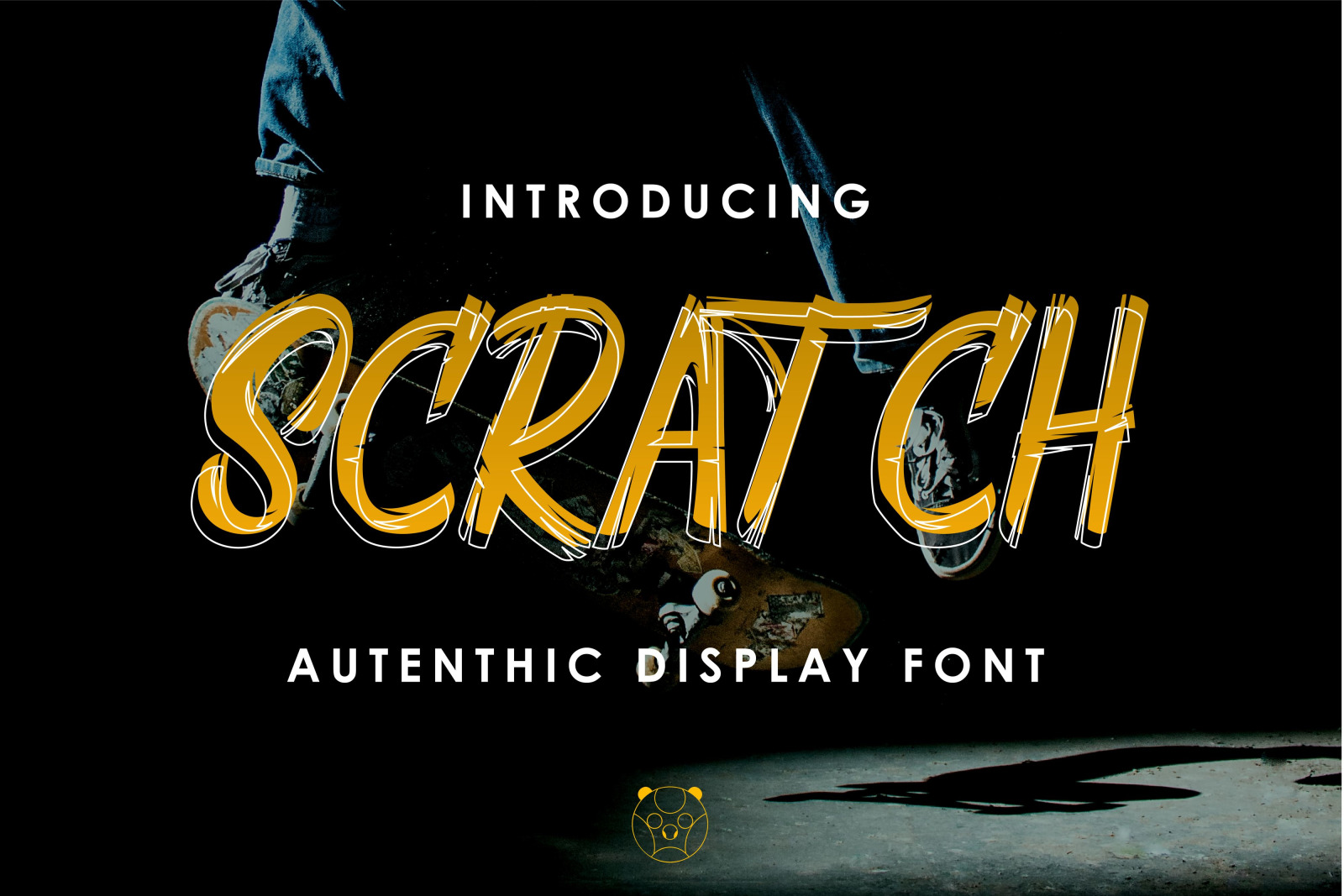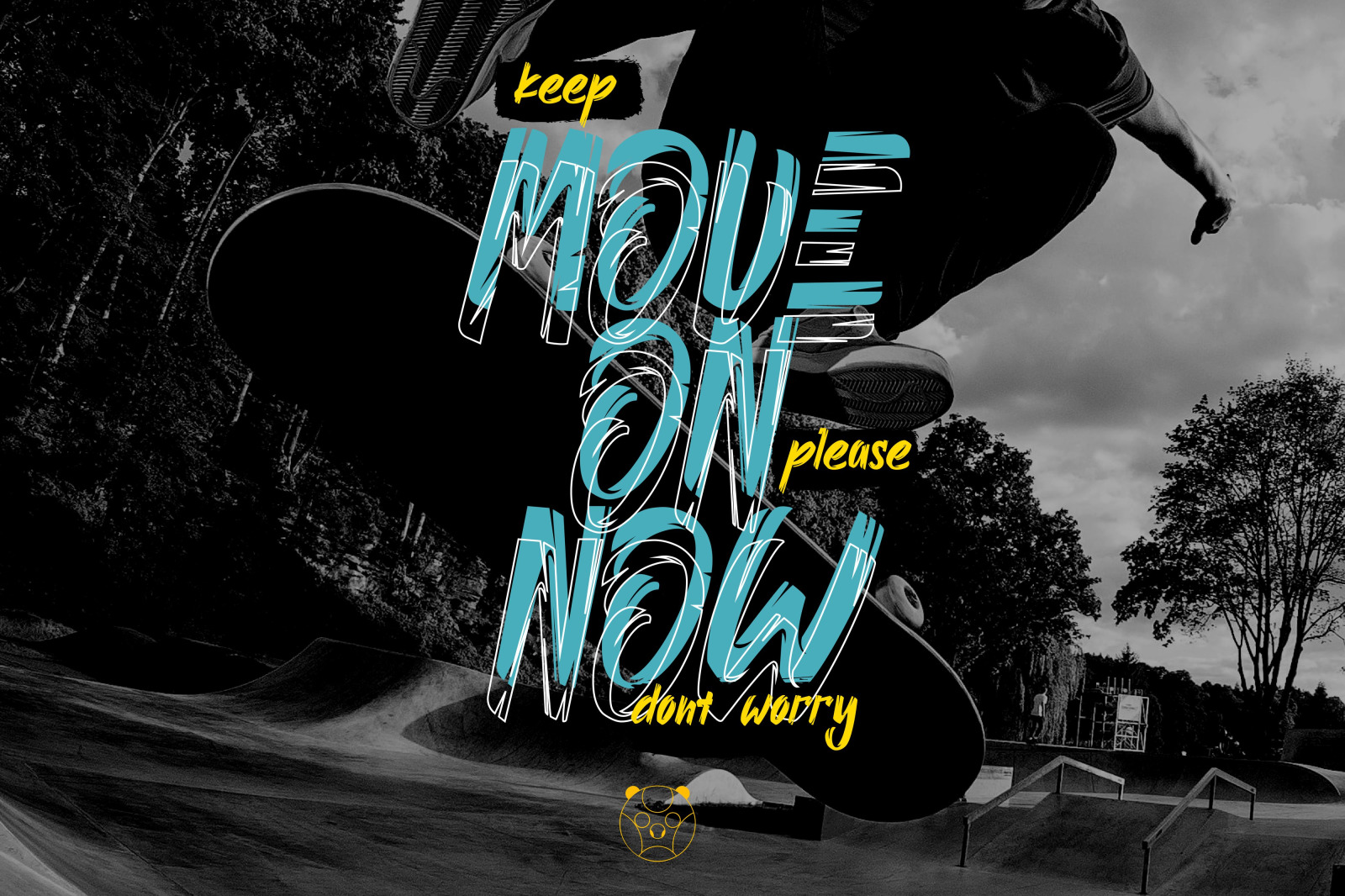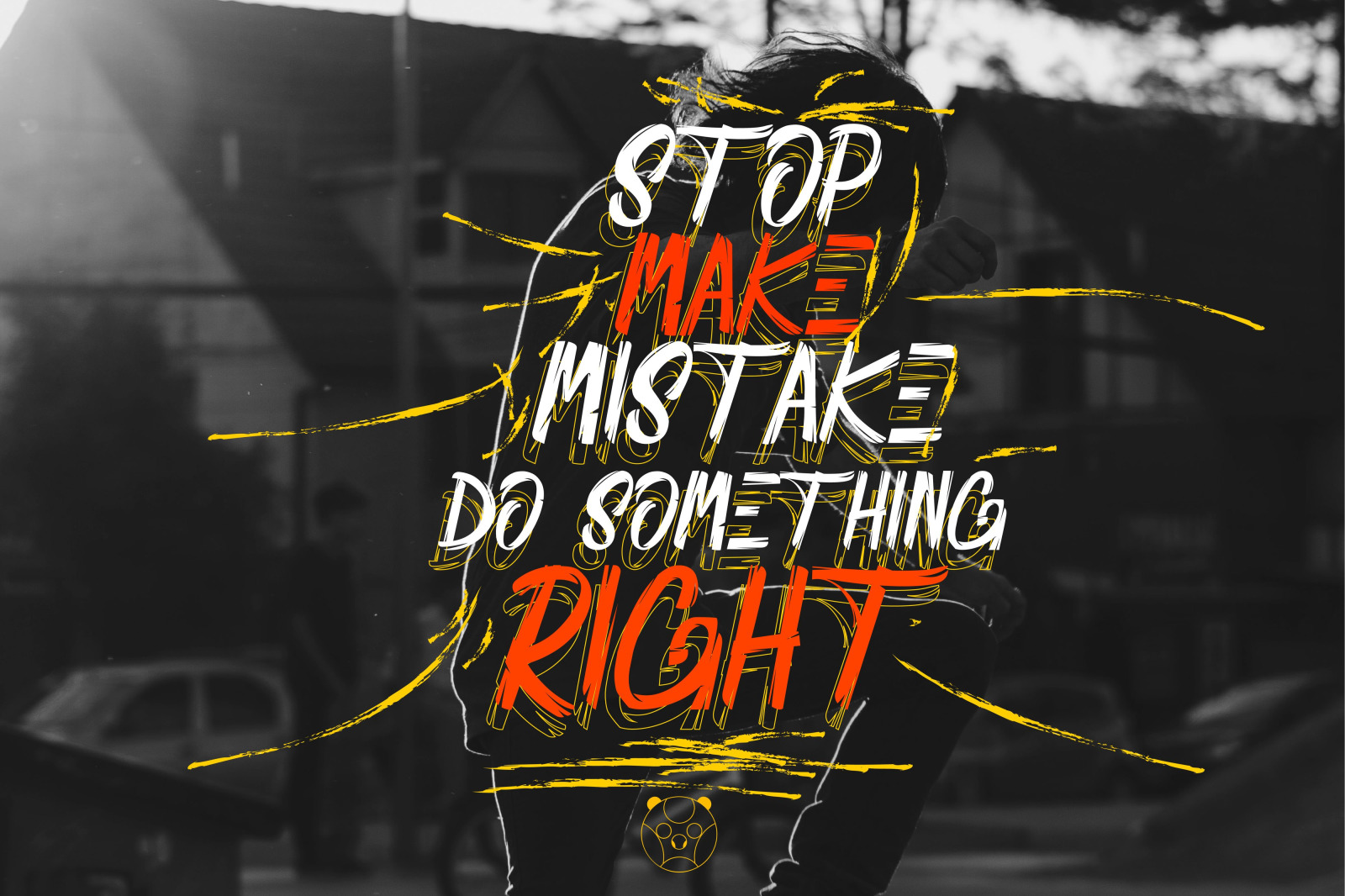
Scratch Authentic Font
Scratch is an authentic display font, simple but powerful for your design. This font can you use for street design, skateboard art, surfing board design, and a T-shirt is really powerful much other design with this display font.